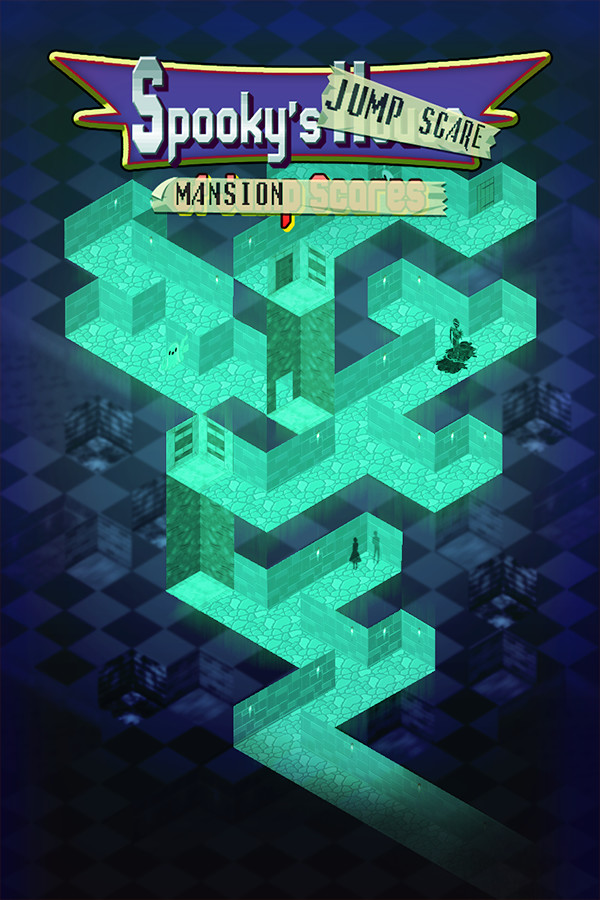
Spooky's Jump Scare Mansion Font
Fonts in UseSpooky’s Jump Scare Mansion is a first-person horror game that takes place in a haunted mansion filled with jump scares and eerie creatures. The player must explore the mansion and survive 1000 rooms in order to escape.
The font used for the title has an octagonal sans serif style that closely resembles the Headline Gothic font designed by Wolf Lambert. Additionally, the pixel font utilized in the game is Lunchtime Doubly So, created by Codeman38.